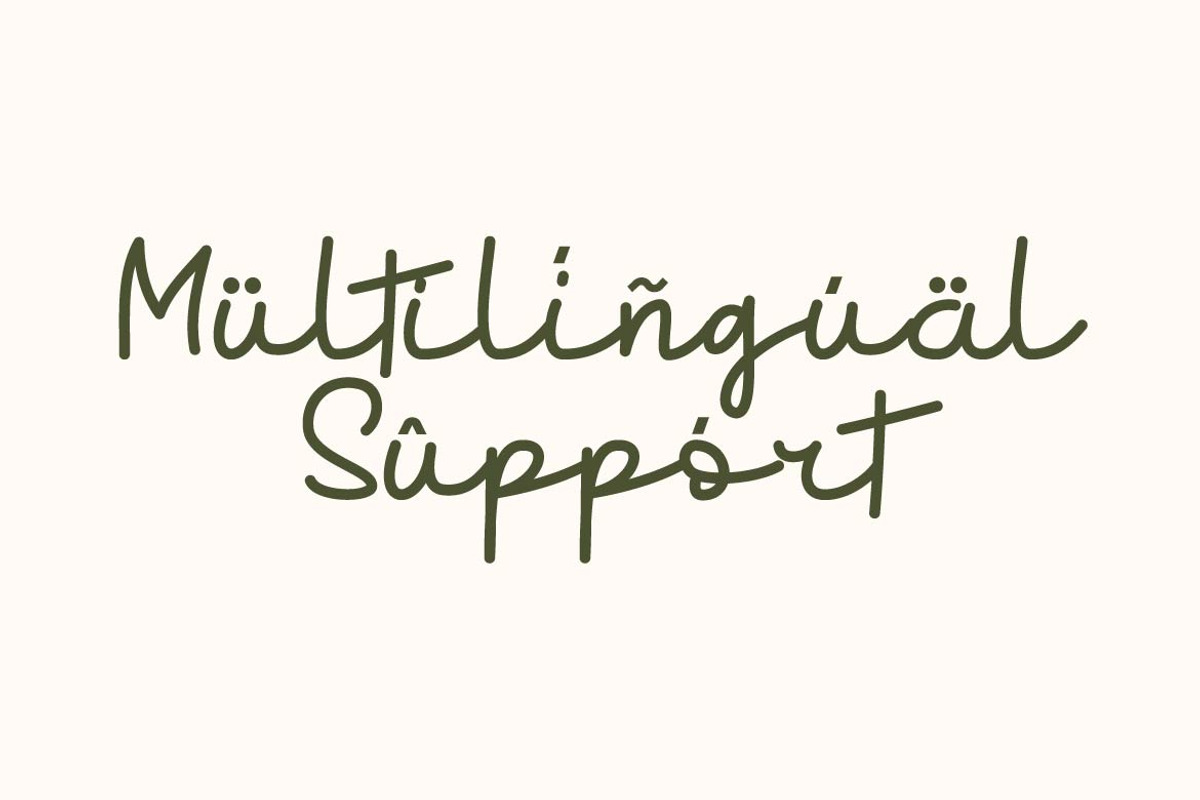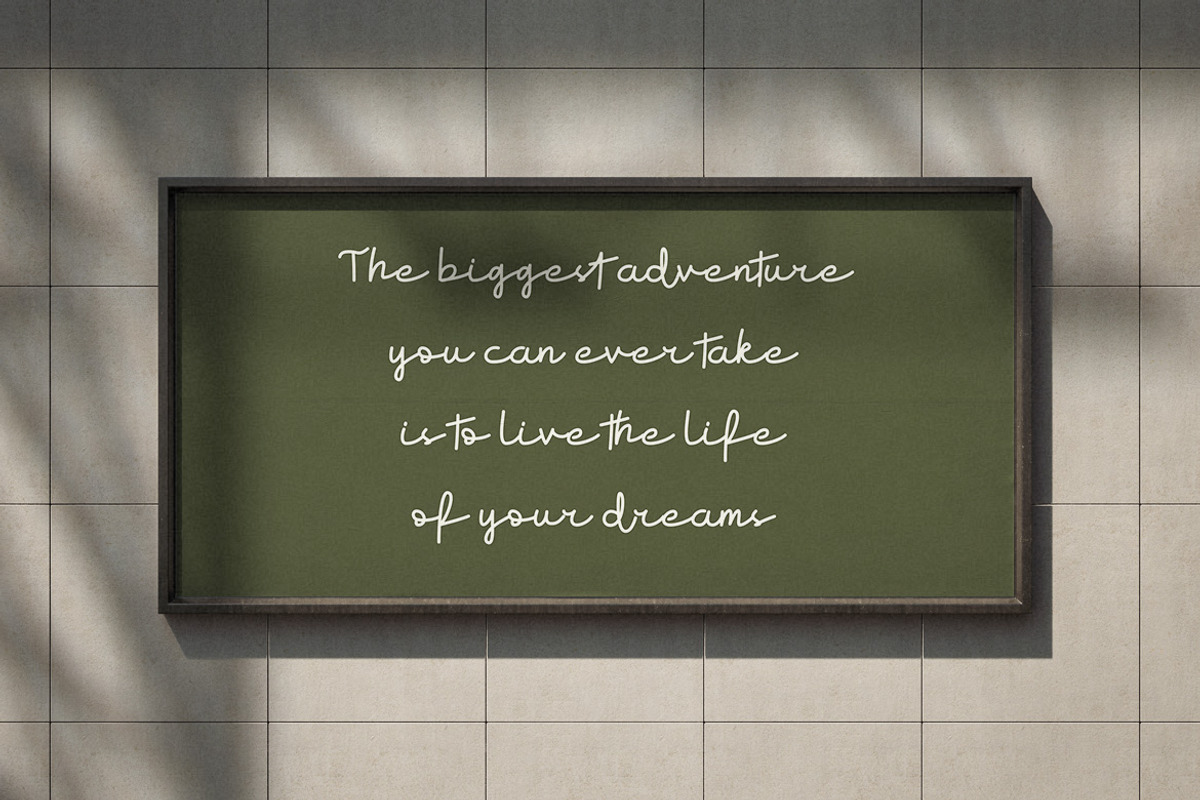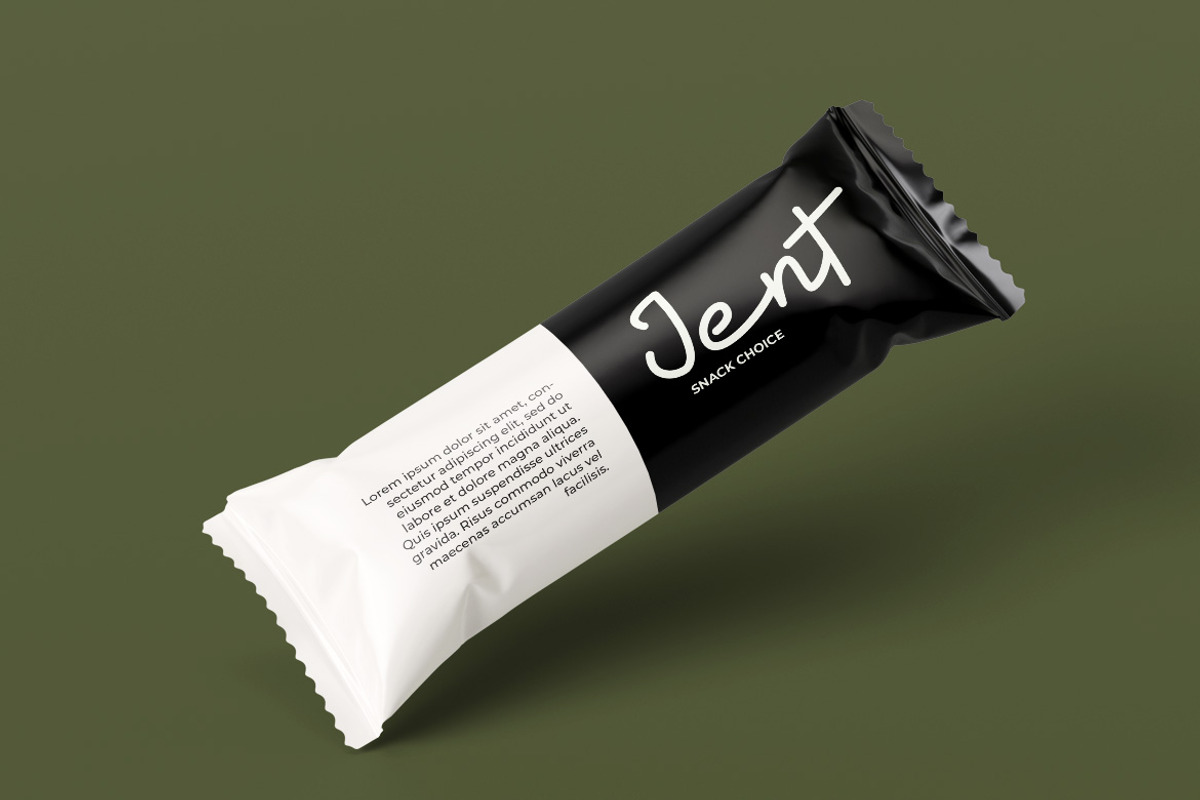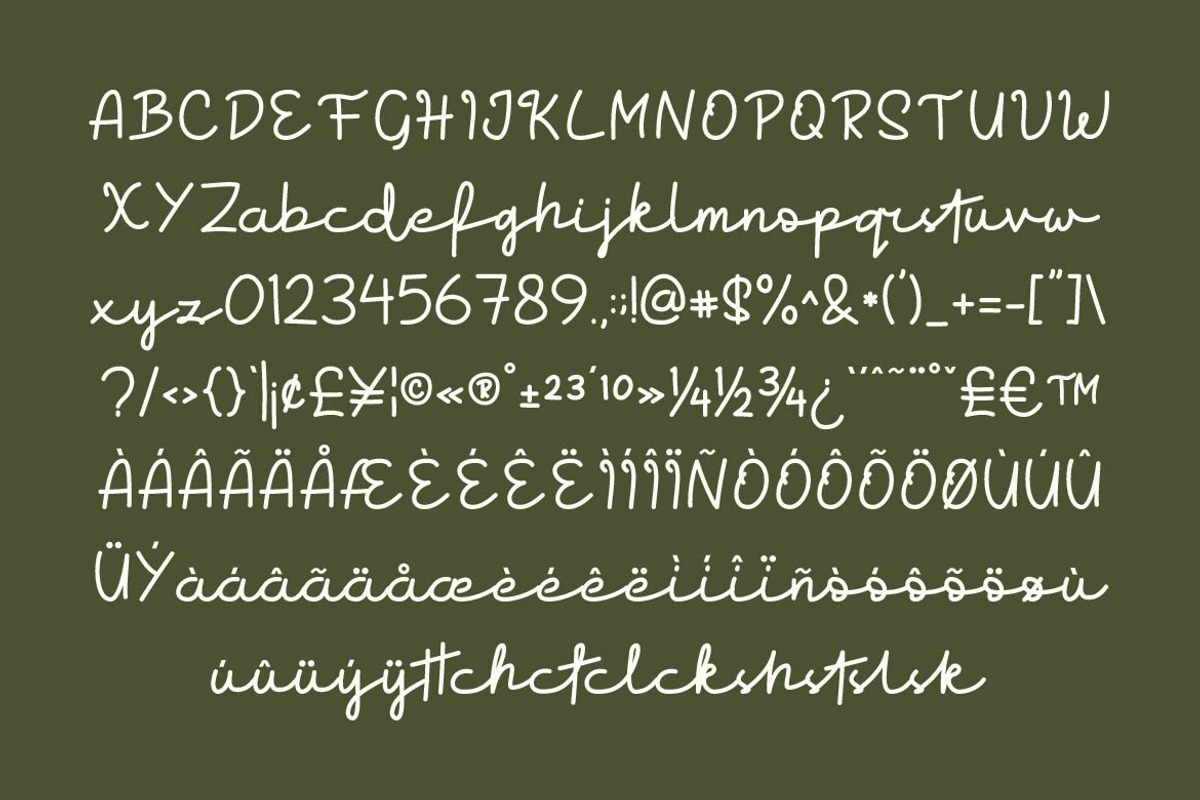
Sectro Minimalist Script
Sectro is a refined script monogram line font designed to express elegance through simplicity. Featuring thin, flowing strokes and graceful handwritten curves, Sectro delivers a clean and sophisticated look ideal for monograms, logos, wedding stationery, invitations, personal branding, and luxury packaging.